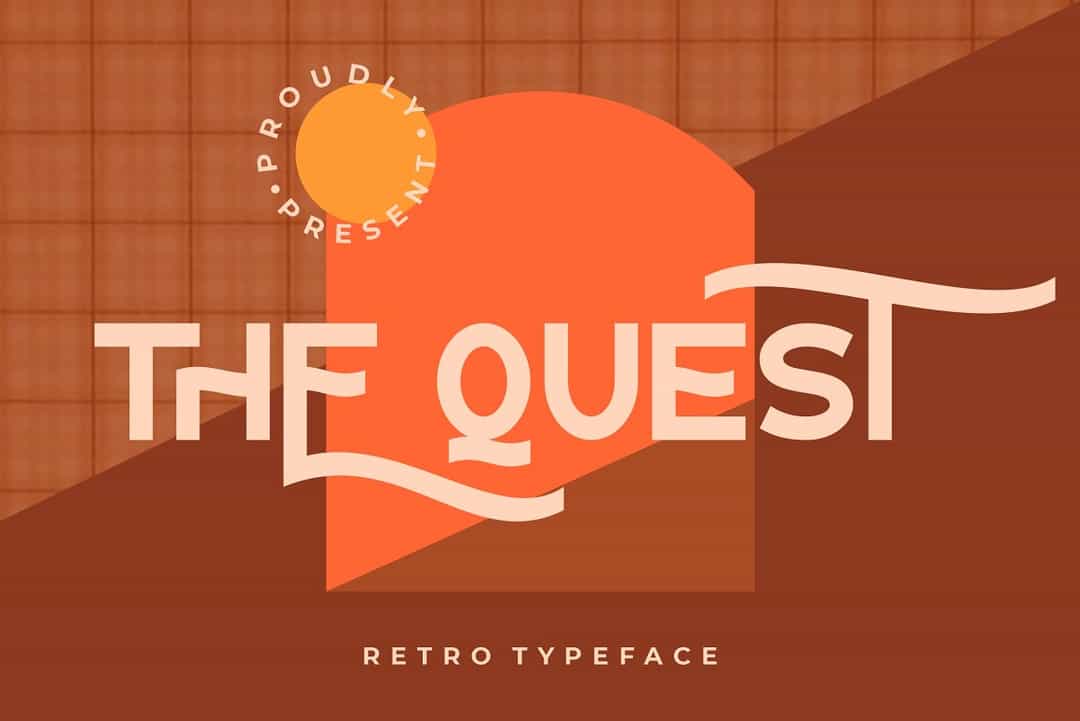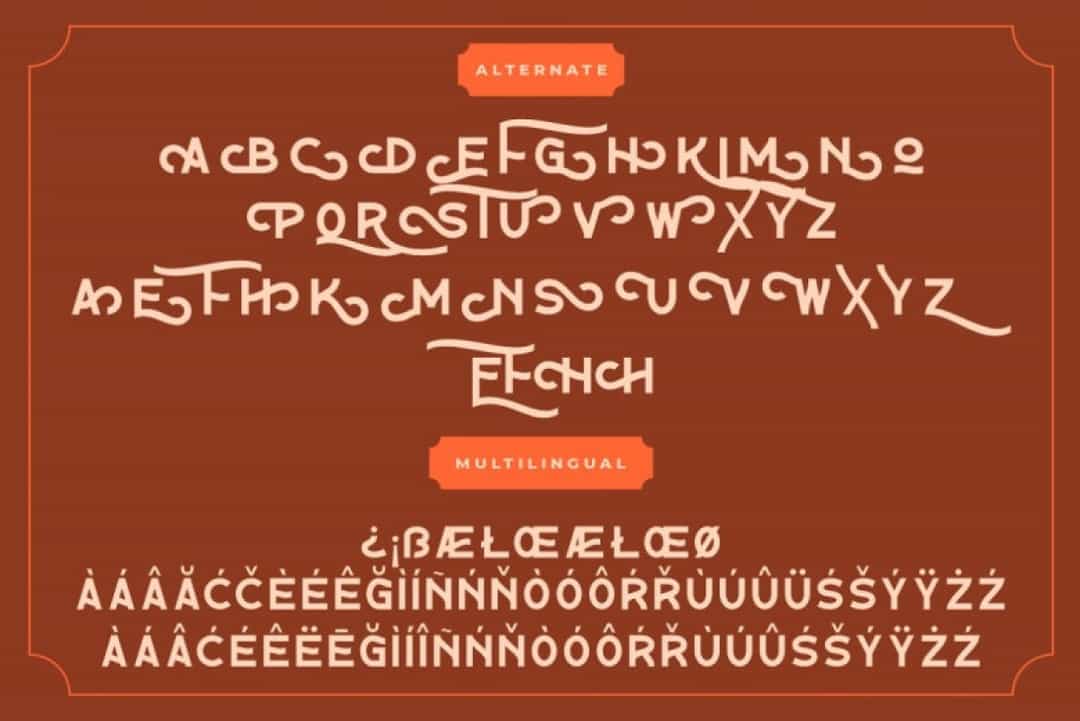
The Quest is a stylish retro sans serif font that will suit any modern design. Best for brand marking, logo and wedding design, advertisement, social media, packaging of products for sale design, labels, photos, watermark, invitation